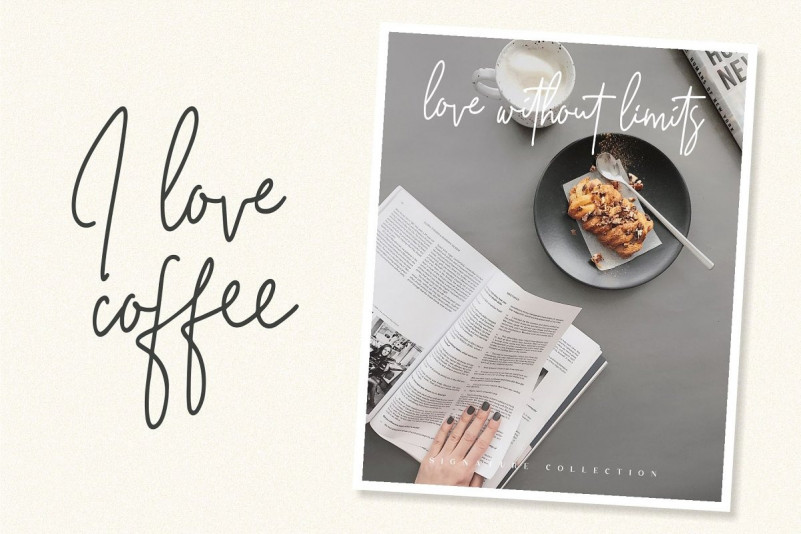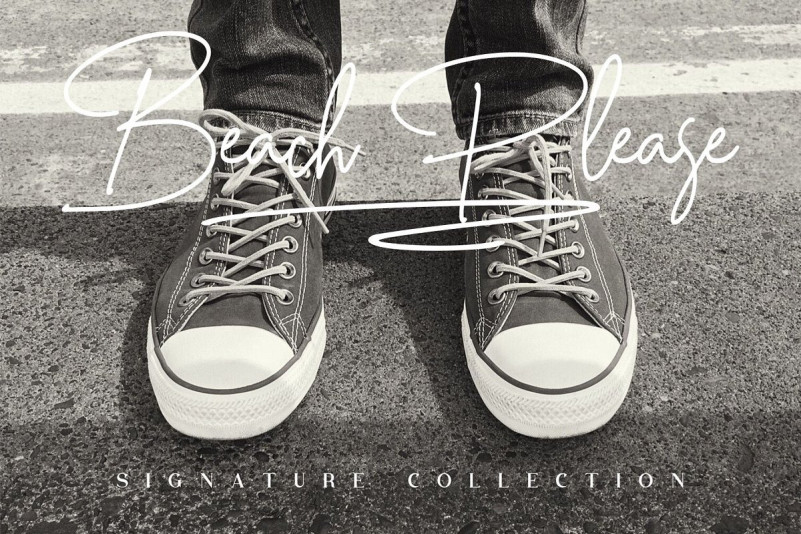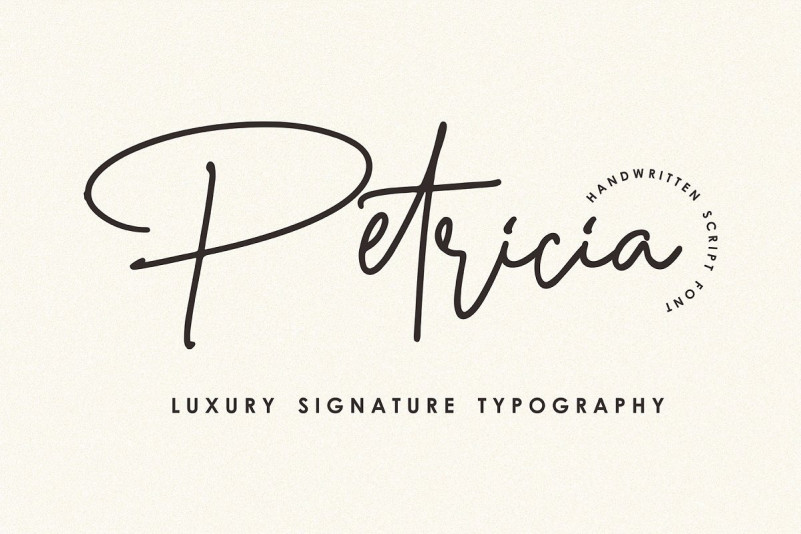
Petricia Handwritten Font
Petricia Handwritten Font is a modern feminine font, every single letter has been carefully crafted to make your text look beautiful. With a modern script style this font will be perfect for many different projects ex: photography, watermark, quotes, blog header, poster, wedding, branding, logo, fashion, apparel, letter, invitation, stationery, etc.